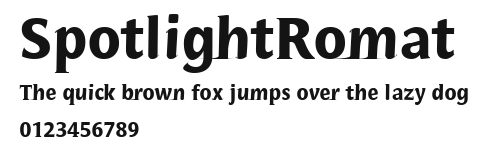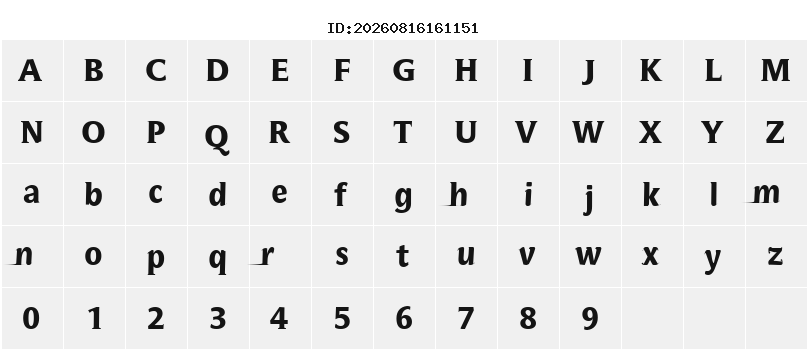
• Font Name: SpotlightRomat
• Full Font Name: SpotlightRomat
• PostScript Name: SpotlightRomat
About SpotlightRomat.ttf
SpotlightRomat.ttf is a modern, elegant sans-serif font designed for ultimate readability and visual harmony. Perfect for branding, headlines, web design, and print materials.